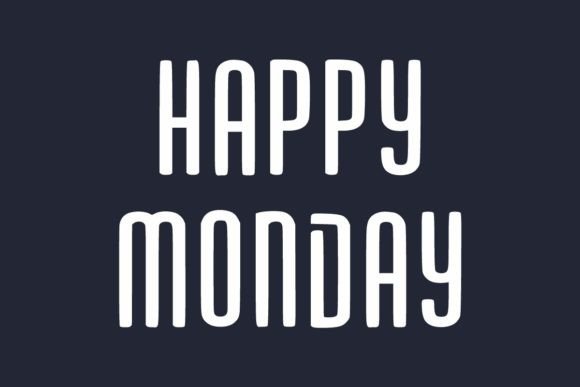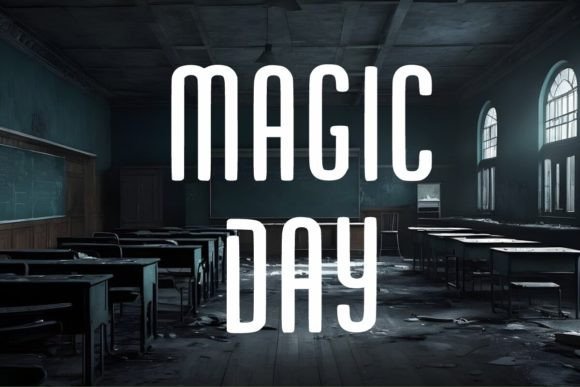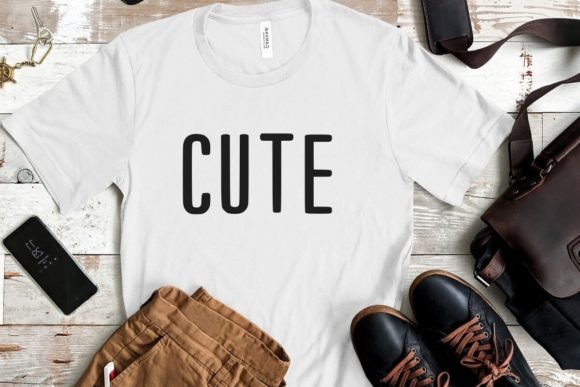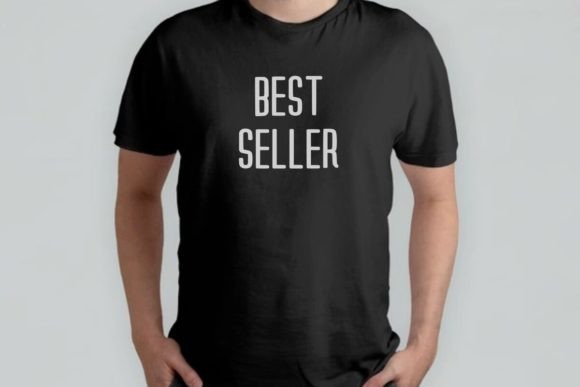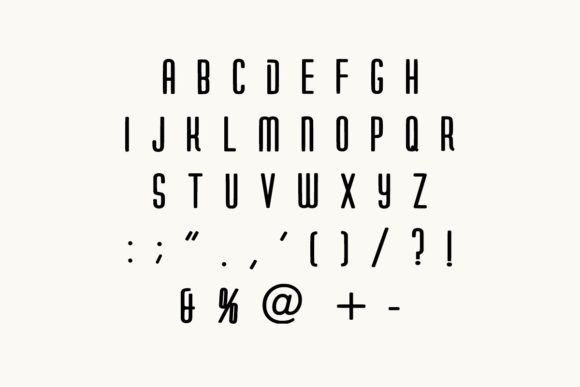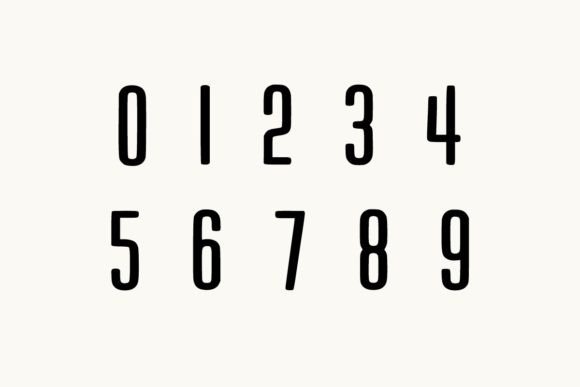
The Ultimate Guide to Dockers Font: Adding a Relaxed Touch to Your Designs
I’ll never forget the time I was working on a project for a client’s surf-inspired clothing brand. I had all the design elements in place – the colors, the imagery, the overall aesthetic – but something was missing. That’s when I realized I needed the perfect font to tie everything together. After hours of scouring the internet, I stumbled upon Dockers Font, and it was love at first sight! ✨
In this article, I’ll share my experience with Dockers Font, its unique features, and how to make the most of it in your designs. Whether you’re a seasoned designer or a creative hobbyist, you’ll learn how to harness the power of this adorable font to add a relaxed touch to your projects.
Dockers Font: A Personal Review
What I Love About Dockers Font
- ✅ Cute and Friendly: Dockers Font has an informal style that’s perfect for designs that require a casual vibe.
- ✅ Simple yet Versatile: Its simplicity makes it easy to pair with other design elements, and its versatility ensures it works well across various applications.
- ✅ Easy to Read: The font’s clean lines and rounded edges make it easy to read, even at smaller sizes.
- ✅ OpenType Features: Dockers Font comes with a range of OpenType features, including glyphs and stylistic alternates, to help you customize your text.
While Dockers Font is an excellent choice for many designs, there are a few things to keep in mind: ⚠️
- 🤔 Limited Formality: As an informal font, Dockers may not be the best choice for designs that require a high level of formality or professionalism.
- 🤔 Legibility at Small Sizes: While generally easy to read, Dockers Font may become less legible at very small sizes (e.g., below 10pt). Be sure to test it thoroughly in your design.
The Story Behind Dockers Font
Dockers Font was designed with the intention of creating a friendly, approachable font that would add a relaxed touch to any design. Its creator, a talented type designer, drew inspiration from the laid-back, casual vibe of beach towns and surfing culture. The result is a font that’s perfect for designs that require a carefree, informal feel.
| Font Name | Dockers Font |
| Author | Infinity art Studio |
Q: What is Dockers Font best suited for?
A: Dockers Font is perfect for designs that require a relaxed, casual vibe, such as product packaging, invitations, quotes, t-shirts, labels, posters, and logos.
Q: Is Dockers Font easy to read?
A: Yes, Dockers Font is generally easy to read, even at smaller sizes. However, it’s always a good idea to test it thoroughly in your design to ensure it’s legible.
Q: Can I use Dockers Font with other fonts?
A: Absolutely! Dockers Font pairs well with many other fonts. Experiment with different combinations to find the perfect match for your design.